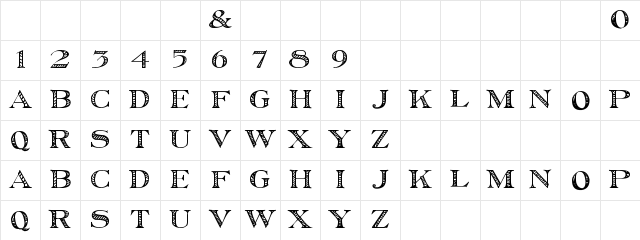
2Peas Peppermint Regular
Foundry: Two Peas In A Bucket
Designer: Tia Bennett
Design Context for 2Peas Peppermint
2Peas Peppermint is a composed and adaptable typeface that performs quietly and consistently across a wide range of design contexts.